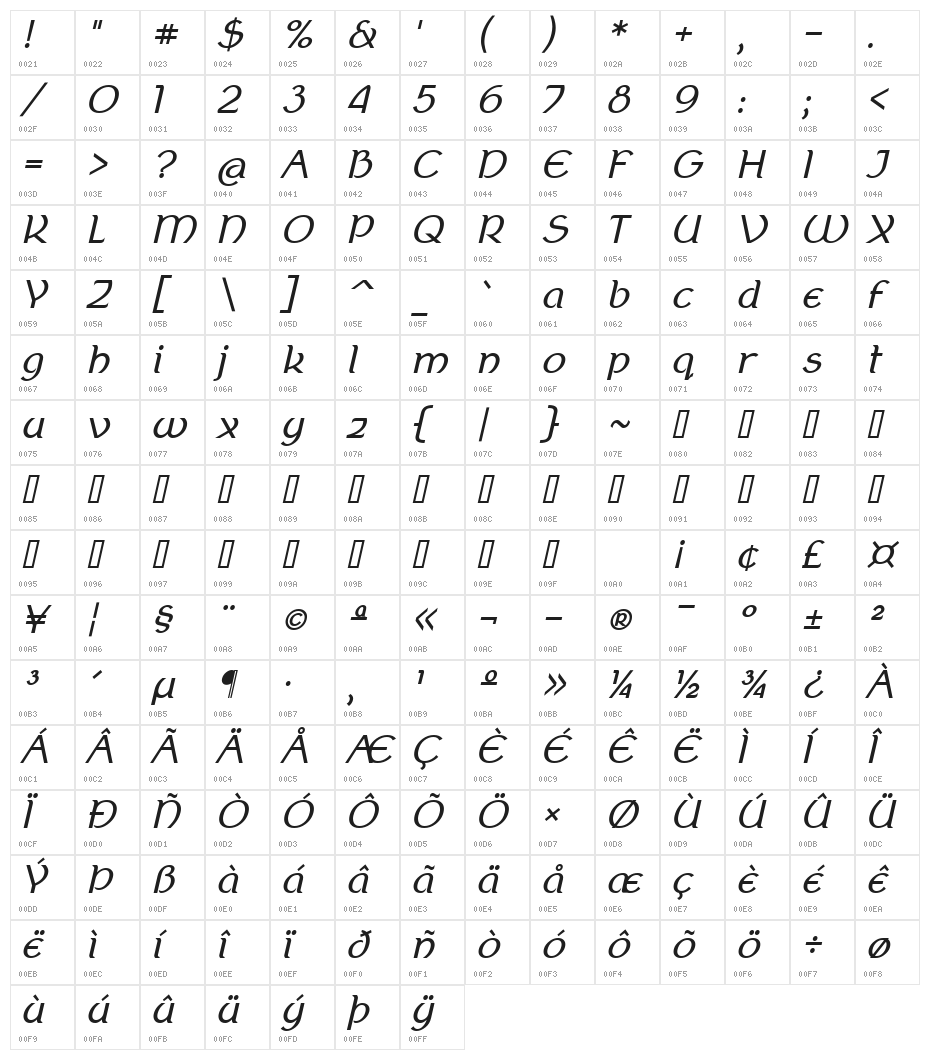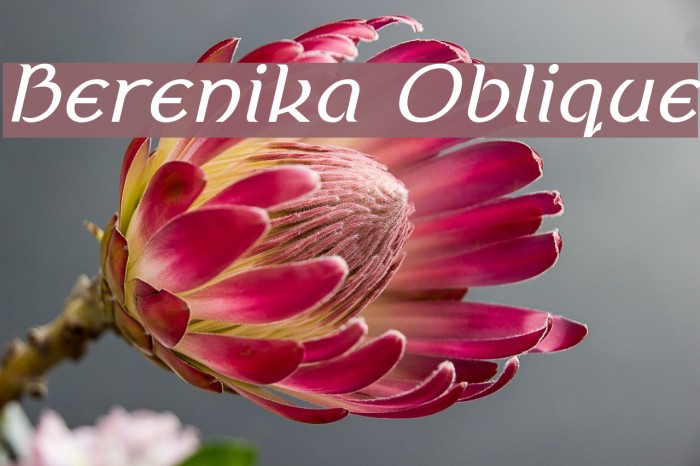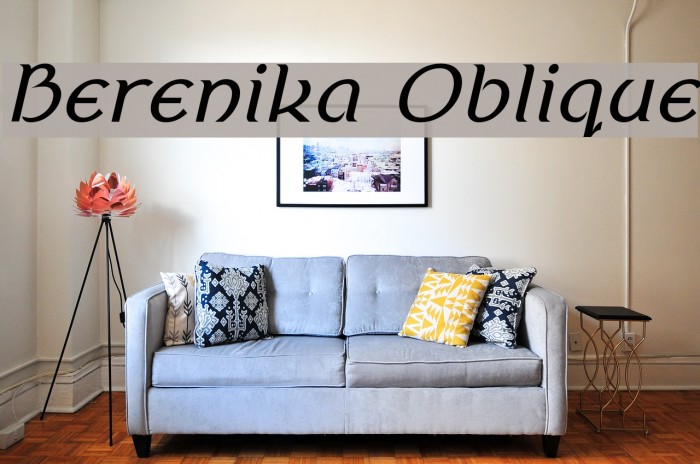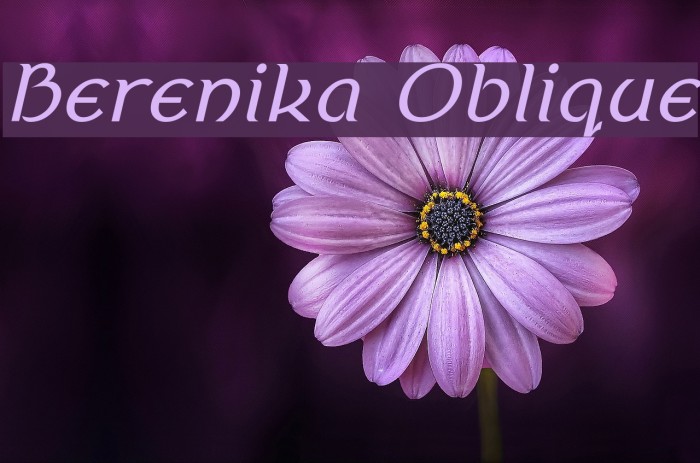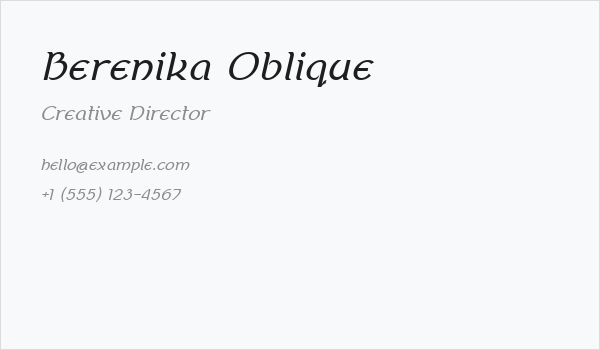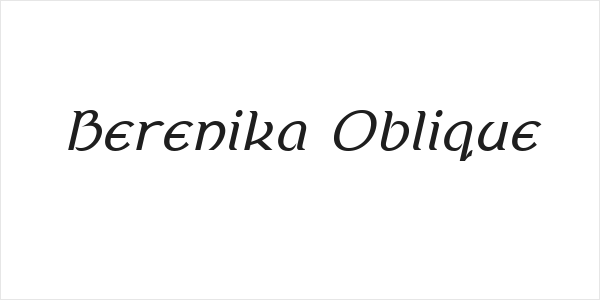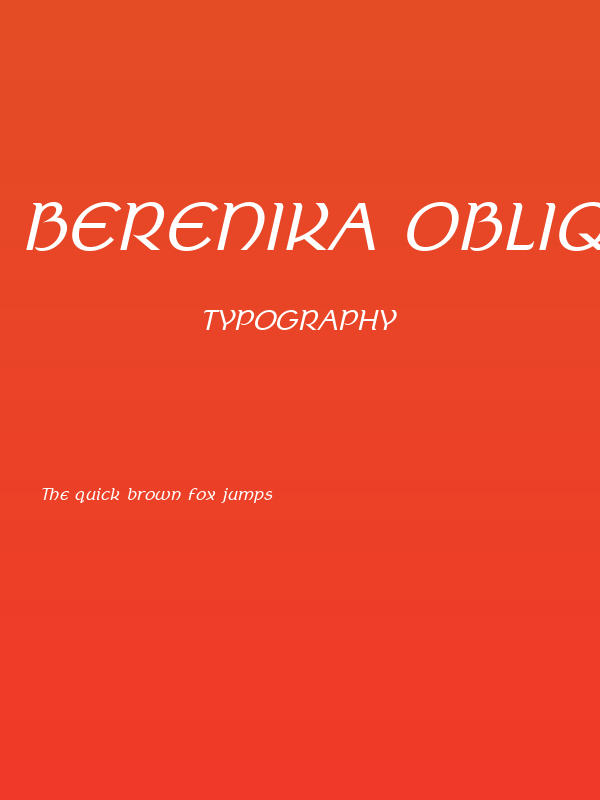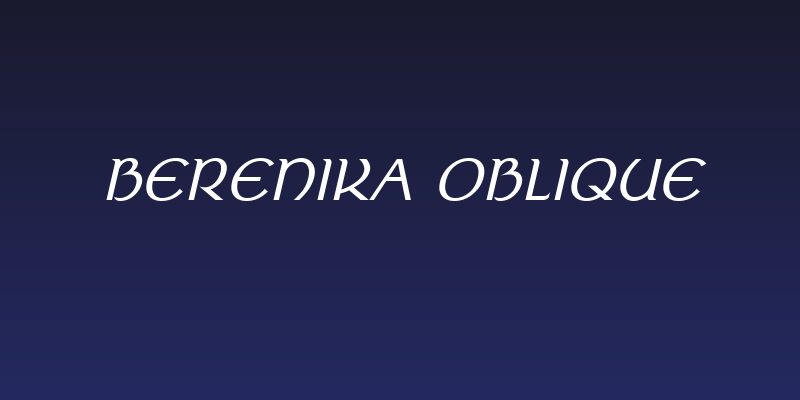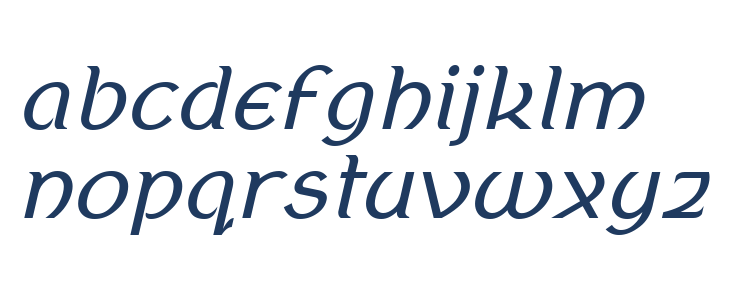
Berenika Oblique Font
Berenika Oblique Description
This font features a dynamic and elegant oblique style, characterized by its smooth, flowing curves and slightly slanted appearance. The uppercase letters are bold and prominent, while the lowercase letters maintain a consistent and harmonious flow. The numerals are well-proportioned, complementing the overall aesthetic. Special characters are designed with the same attention to detail, ensuring a cohesive look across all glyphs. The font's design is both modern and timeless, making it suitable for a variety of applications.
| Use Case | Headlines, Logos, Editorial design |
| Proposed Projects | Ideal for branding, editorial design, and advertising where a touch of elegance is desired. |